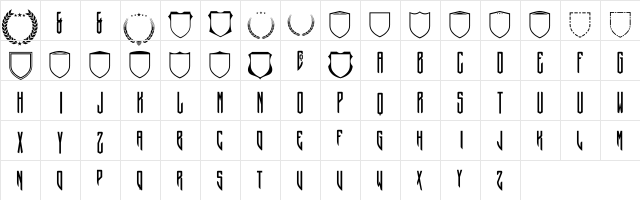
Crepitus monogram
Design Context for Crepitus Typeface
Crepitus uses fixed-width spacing throughout, giving it the structured, systematic character associated with coding environments and technical documentation.
Pro Tip: Use Crepitus with slightly increased line-height for extended reading — fixed-width spacing can feel dense in longer passages without extra breathing room.